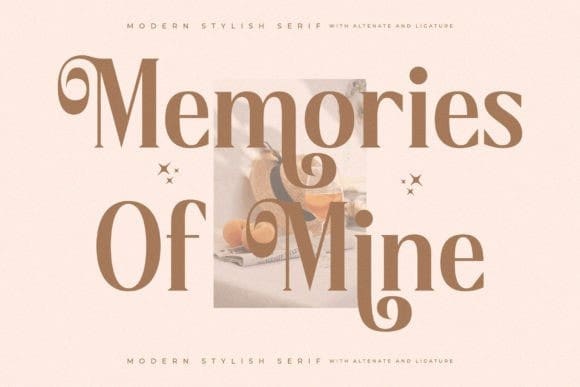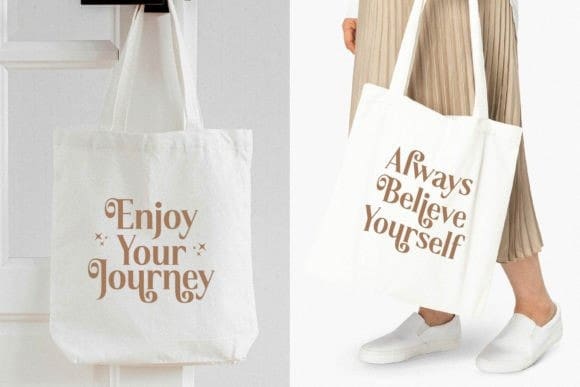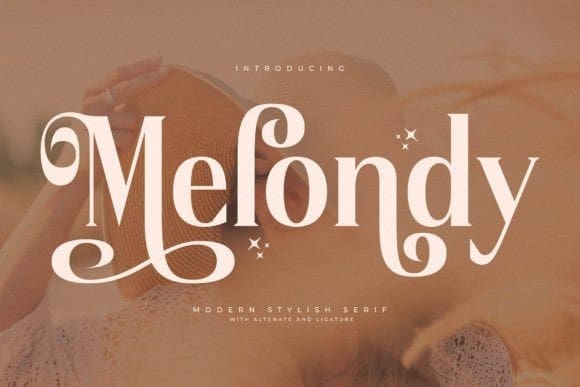
Melondy Font
Melondy Font is a classic, yet modern serif typeface that has its unique style. It is perfect for elegant and luxurious logos, book and movie title design, fashion brands, magazines, lettering, labels, and more.